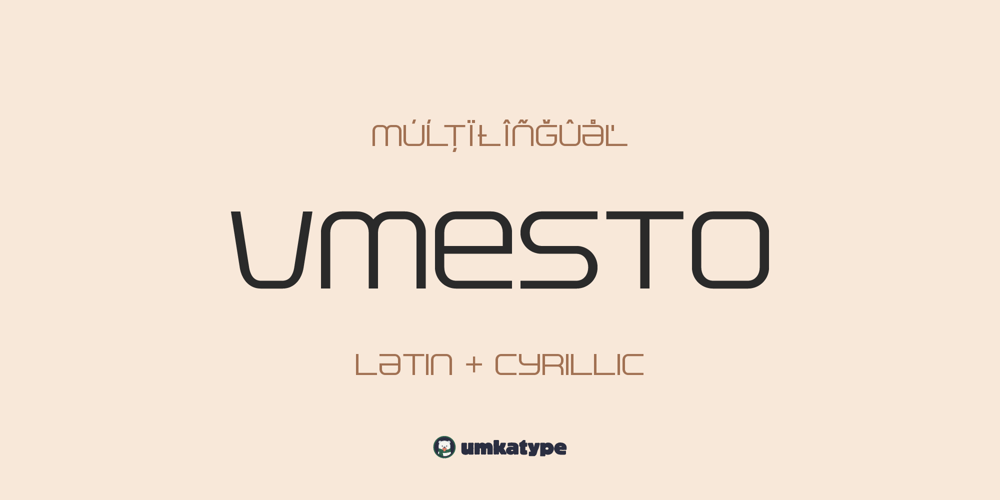
Vmesto Font Family was designed by Alper Çakıcı and published by Umka Type. Vmesto contains 1 styles and family package options. Vmesto is a modern, versatile font with excellent kerning, making it ideal for both digital and print use. It features full support for the Cyrillic language, allowing for seamless multilingual communication. Vmesto’s unique design combines classic proportions with a contemporary feel, making it stand out from other same categories fonts.It supports 91 Languages: Belarusian, Russian, Afrikaans, Albanian, Asu, Basque, Bemba, Bena, Breton, Catalan, Chiga, Colognian, Cornish, Croatian, Czech, Danish, Dutch, Embu, English, Esperanto, Estonian, Faroese, Filipino, Finnish, French, Friulian, Galician, German, Gusii, Hungarian, Indonesian, Irish, Italian, Kabuverdianu, Kalenjin, Kamba, Kikuyu, Kinyarwanda, Latvian, Lithuanian, Lower Sorbian, Luo, Luxembourgish, Luyia, Machame, Makhuwa-Meetto, Makonde, Malagasy, Maltese, Manx, Meru, Morisyen, North Ndebele, Norwegian Bokmål, Norwegian Nynorsk, Nyankole, Oromo, Polish, Portuguese, Quechua, Romanian, Romansh, Rombo, Rundi, Rwa, Samburu, Sango, Sangu, Scottish Gaelic, Sena, Serbian, Shambala, Shona, Slovak, Soga, Somali, Spanish, Swahili, Swedish, Swiss German, Taita, Teso, Turkish, Upper Sorbian, Uzbek (Latin), Volapük, Vunjo, Walser, Welsh, Western Frisian, Zulu